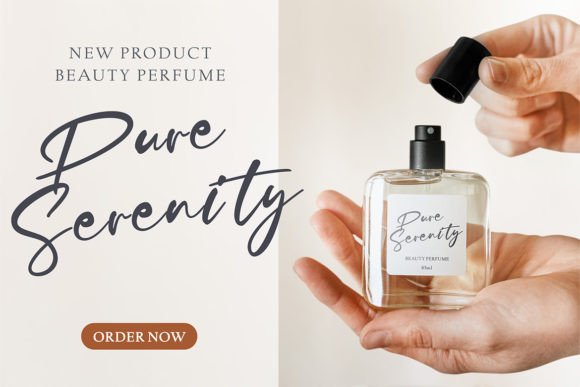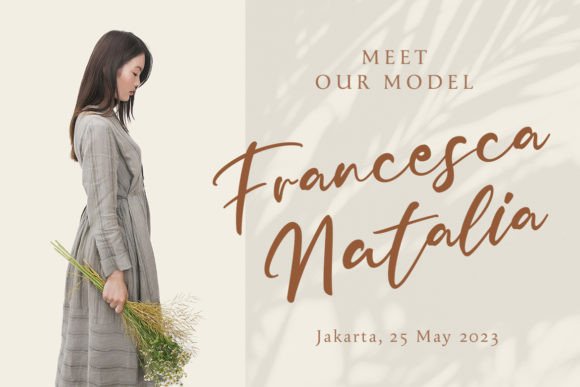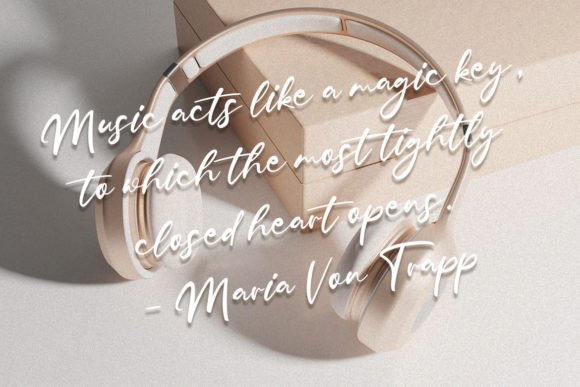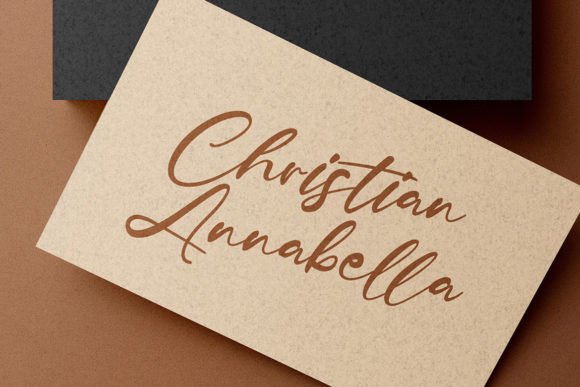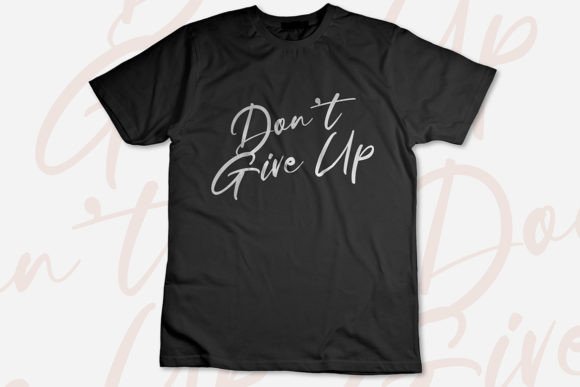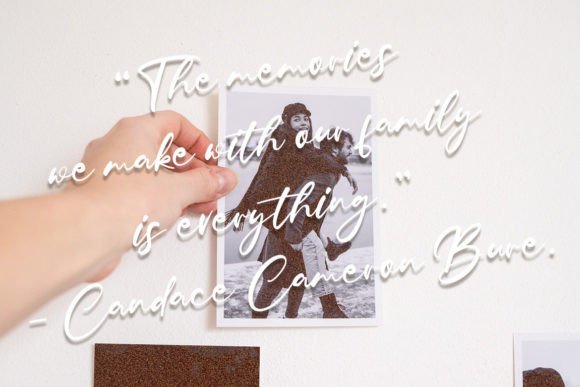
Cintaiku Font: Elevate Your Designs with Handwritten Elegance
In the world of digital design, fonts play a crucial role in conveying emotions and setting the tone for your creative projects. For those seeking a touch of warmth, authenticity, and romance, the Cintaiku Font is an exceptional choice. This beautifully crafted font is designed to bring a sense of elegance and whimsy to your designs, making it perfect for a variety of applications, from wedding invitations to greeting cards.
The Essence of Handwritten Artistry
Each stroke of the Cintaiku Font carries the essence of handwritten artistry, adding a unique and personal touch to your designs. Unlike generic, machine-generated fonts, Cintaiku is carefully crafted to mimic the fluidity and expressiveness of handwriting. This results in a warm and inviting aesthetic that resonates with audiences and makes your designs stand out.
Transforming Ordinary Words into Visual Poetry
Whether you’re designing a romantic wedding invitation, a whimsical greeting card, or any other project that requires a touch of elegance, the Cintaiku Font is an excellent choice. Its beautiful, flowing script effortlessly transforms ordinary words into captivating works of visual poetry. With Cintaiku, you can create stunning designs that not only convey your message but also evoke emotions and spark imagination.
Cintaiku Font is a versatile and user-friendly font that’s perfect for designers and crafters of all levels. Its clear and legible script makes it easy to read and work with, while its elegant and artistic style adds a touch of sophistication to any design. Whether you’re a professional designer or a DIY crafter, Cintaiku Font is an excellent addition to your creative toolkit.
- Handwritten elegance: Cintaiku Font boasts a beautiful, handwritten script that adds a touch of warmth and authenticity to your designs.
- Versatility: Suitable for a wide range of applications, from wedding invitations to greeting cards, and more.
- Easy to read and work with: Cintaiku Font features a clear and legible script, making it perfect for designers and crafters of all levels.
- Unique and personal touch: Each stroke carries the essence of handwritten artistry, giving your designs a distinctive and personal feel.
Tips for Using Cintaiku Font
To get the most out of the Cintaiku Font, here are a few tips to keep in mind:
- Pair with complementary fonts: Combine Cintaiku Font with other fonts that complement its elegant and artistic style.
- Experiment with colors and textures: Add depth and interest to your designs by experimenting with different colors and textures.
- Use for headlines and titles: Cintaiku Font is perfect for headlines and titles, where its elegant script can make a lasting impression.
In conclusion, the Cintaiku Font is a beautiful and versatile font that’s perfect for designers and crafters seeking to add a touch of elegance and whimsy to their designs. With its handwritten elegance, versatility, and ease of use, Cintaiku Font is an excellent choice for a wide range of applications. Whether you’re designing a romantic wedding invitation or a whimsical greeting card, this font is sure to elevate your designs and leave a lasting impression.